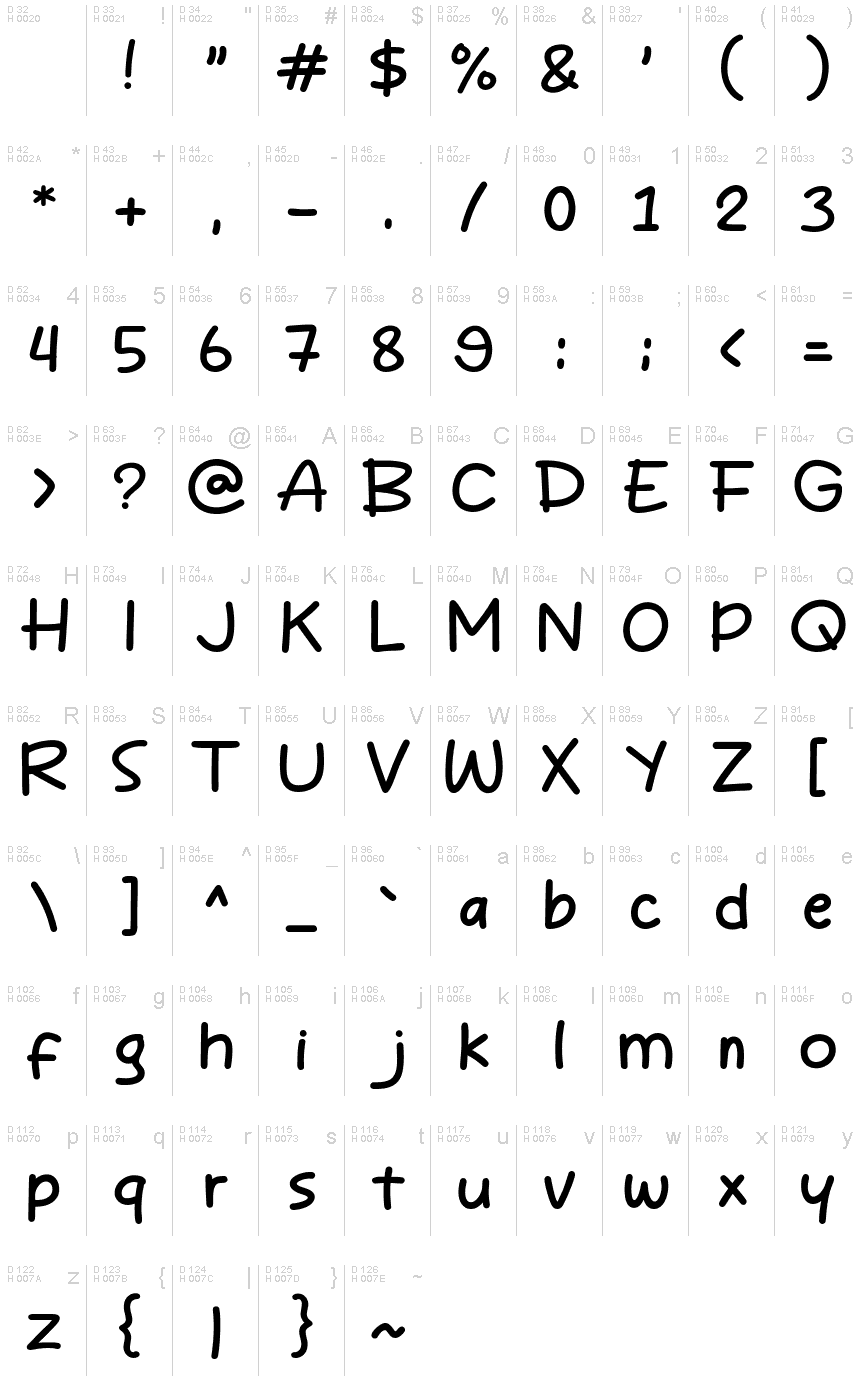
Howlimit
Howlimit, a captivating handwritten font by Khurasan, invites you to unleash your creativity. With its semi-light weight and flowing strokes, this font exudes elegance and sophistication.
Perfect for branding projects that demand a touch of personality, Howlimit adds a unique charm to logos, packaging designs, and social media graphics. Its organic flow makes it equally suitable for wedding invitations and feminine blog headers. Whether you're designing a fashion magazine or a trendy café menu, let Howlimit's handwritten style add that extra flair to your projects.